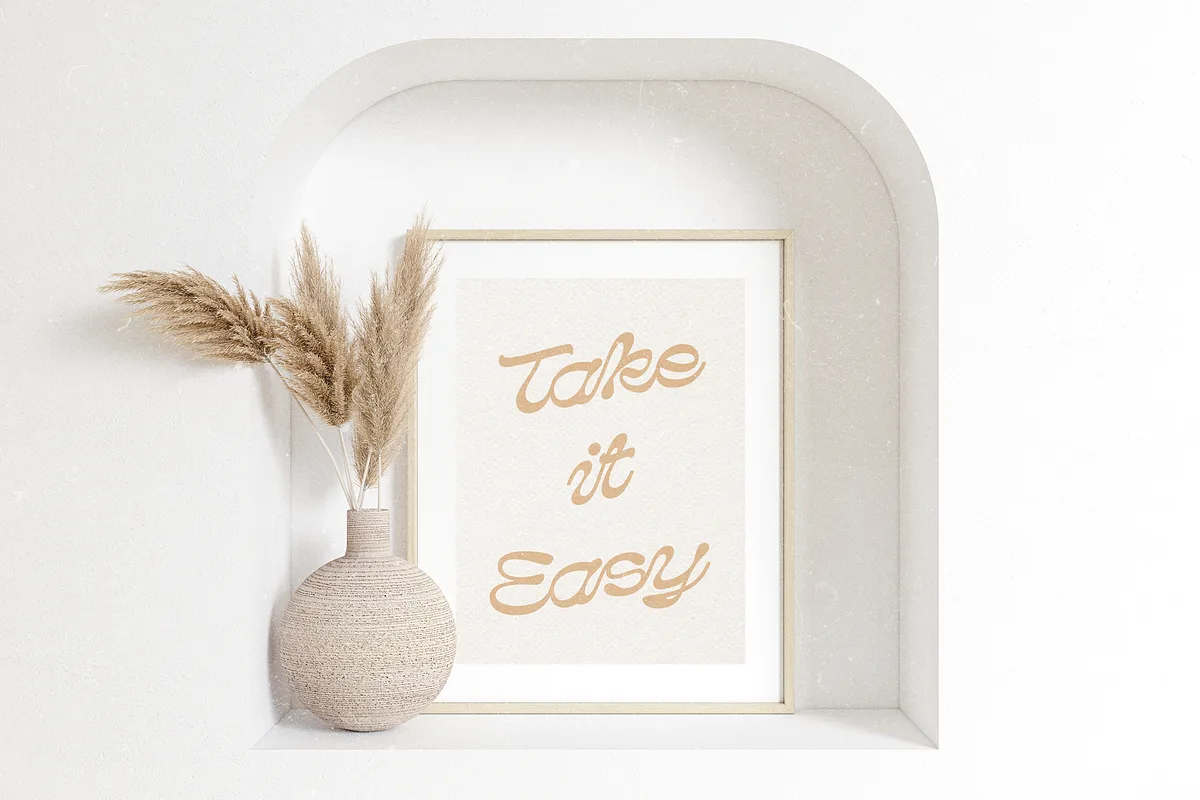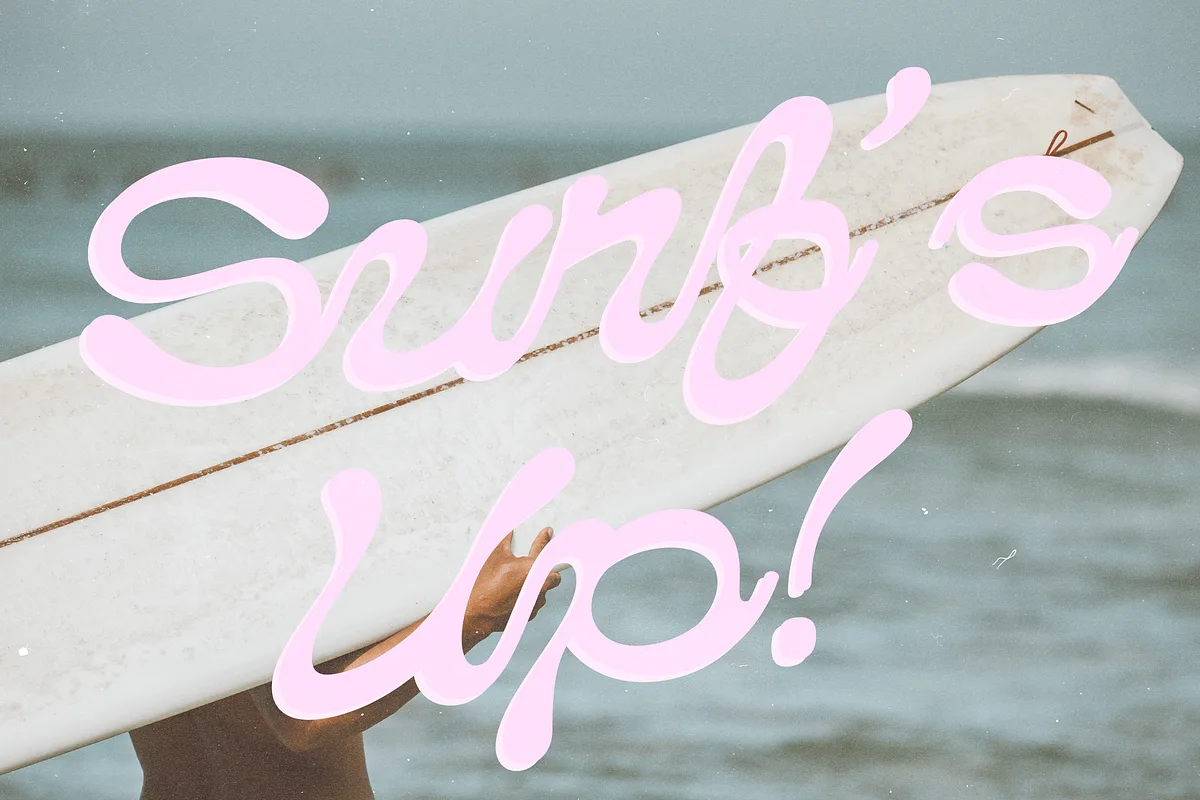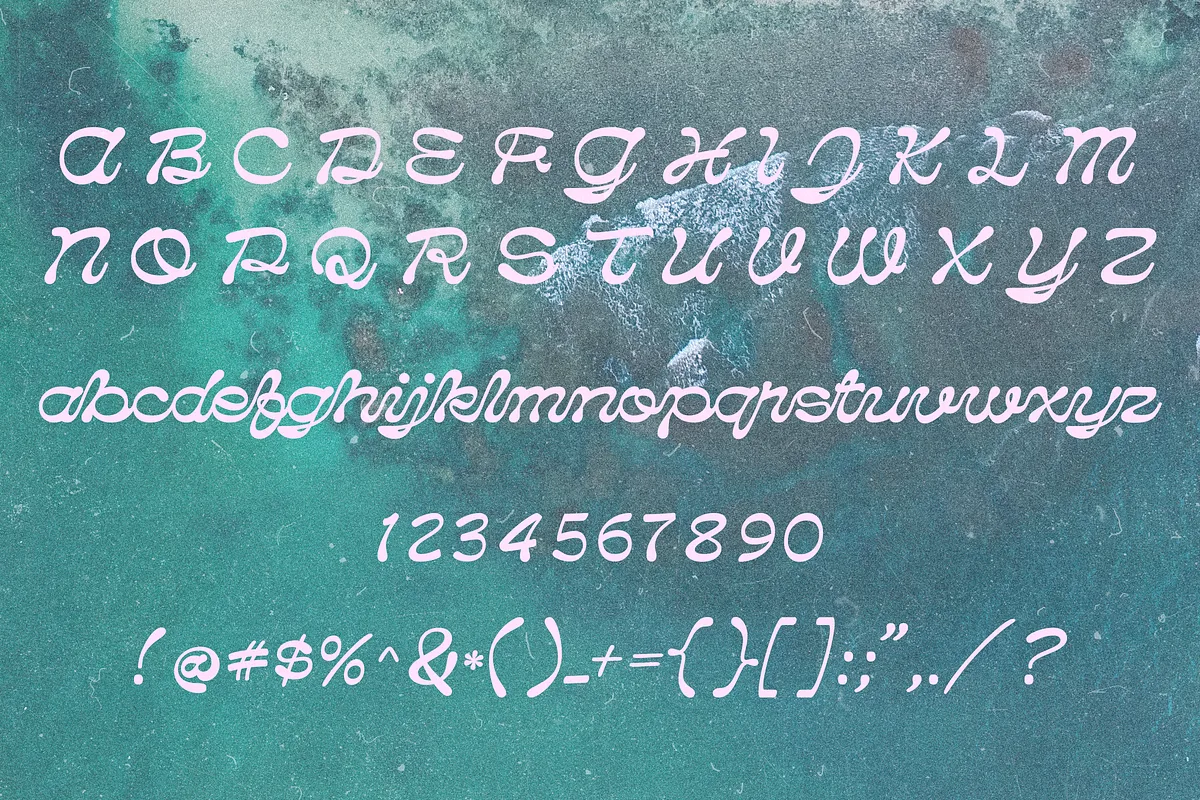
Lumino is a unique and quirky script typeface inspired by retro designs. This script stands out with its flowing curves that link together seamlessly.
Lumino is an excellent choice for creating memorable designs. It’s well suited for things like product packaging, logos, social content & so much more.